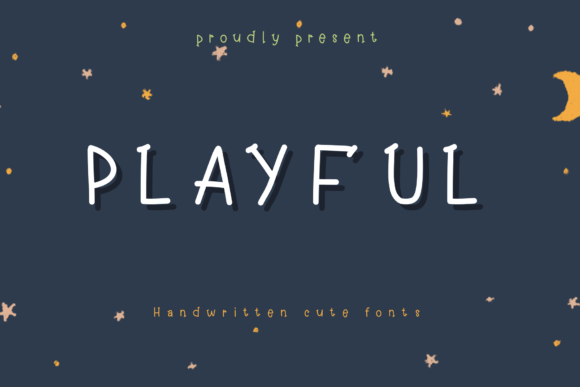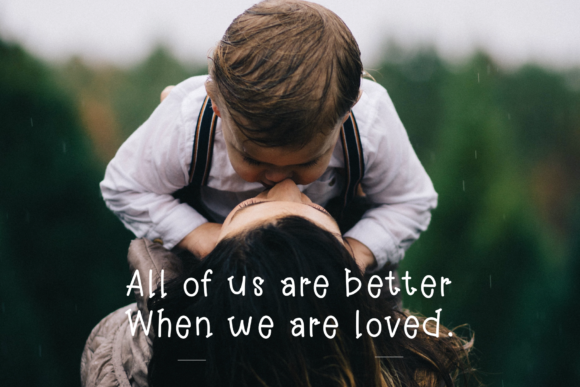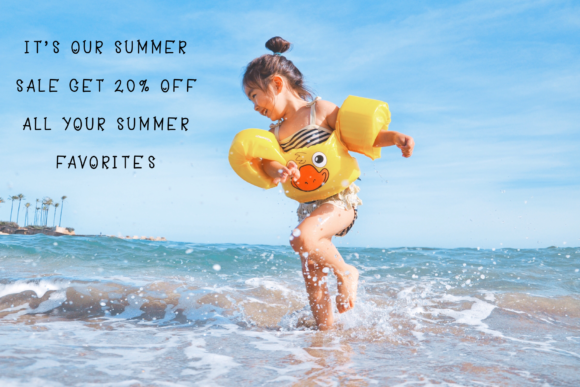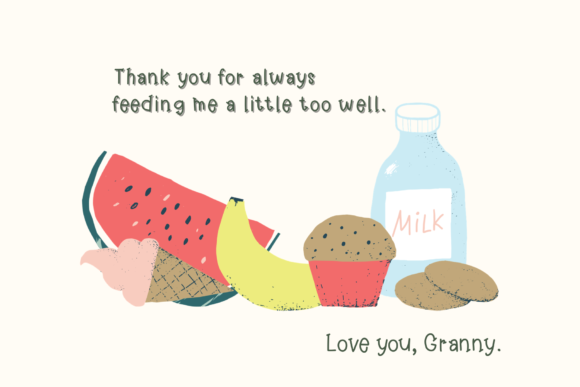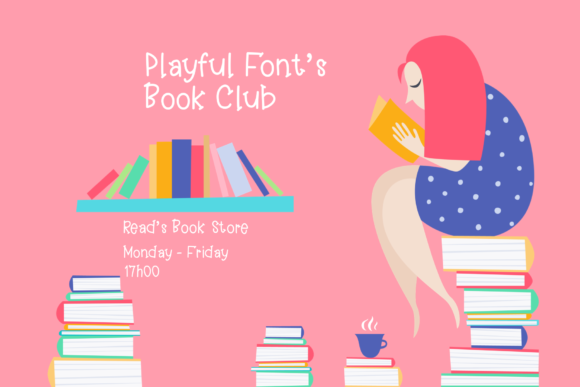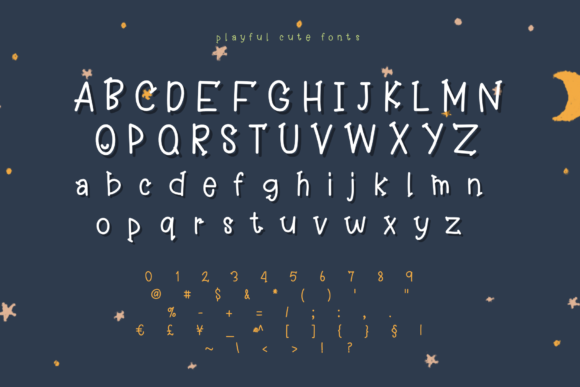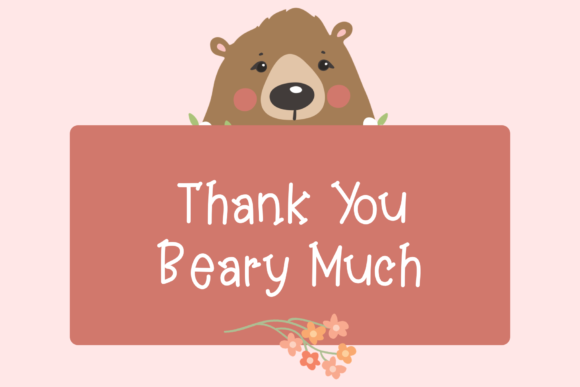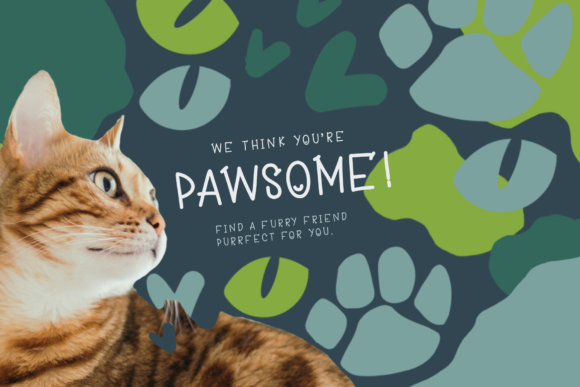
HomeScript FontsPlayful Font Script Fonts Playful Font FacebookXPinterestWhatsApp 1 of 8 Playful Font Poster 2... Playful Font Poster 3... Playful Font Poster 4... Playful Font Poster 5... Playful Font Poster 6... Playful Font Poster 7... Playful Font Poster 8... About Playful Font Playful is a cute and quirky handwritten font. Fall in love with it and bring your projects to the highest levels! DOWNLOAD NOW People also explored Cabo Rounded Light Font Corin Stacy Font Stay Positive Font Sabrina Script Font Harlandey Font Hafetareha Font Simple Pumkin Font Amazing Beauty Font Milkshake Font 244 0 TagsPlayful Font Previous articleHudza Signature FontNext articleSnail Treasure Font LEAVE A REPLY Cancel reply Comment: Please enter your comment! Name:* Please enter your name here Email:* You have entered an incorrect email address! Please enter your email address here Website: Save my name, email, and website in this browser for the next time I comment. Personal Use Free Letter Hanger Personal Use Free Read more about this font Rare Knuckle Personal Use Free Read more about this font Manbow Personal Use Free Read more about this font Single Sleeve Personal Use Free Read more about this font BLOG To increase your work productivity, choose the most readable fonts. In today's fast-paced work environment, where digital communication and information consumption are integral to our daily routines, the choice of fonts can significantly impact... Where to Buy American Fonts Online in 2024 Elegant Wedding Invitation Fonts – Handwritten & Script Fonts Top 7 Google Fonts Alternatives for Faster and Privacy-Friendly Web Design (2025)